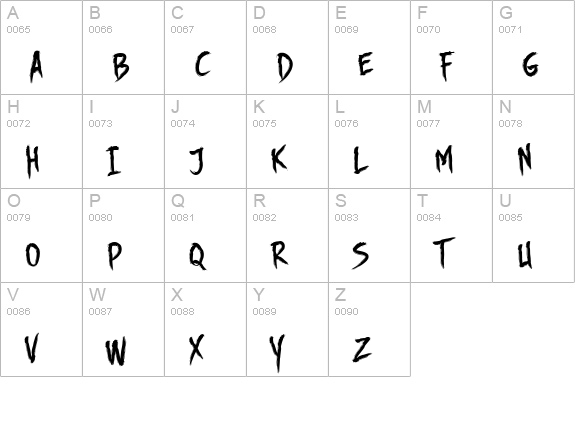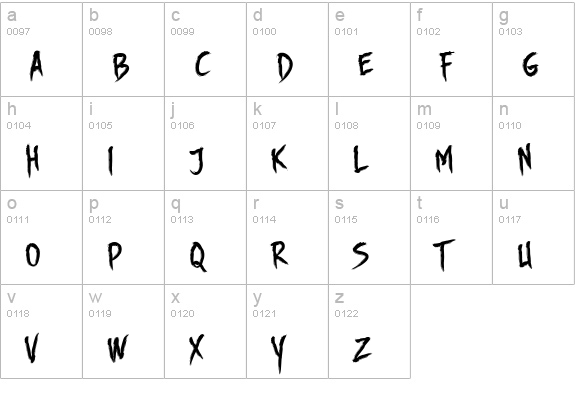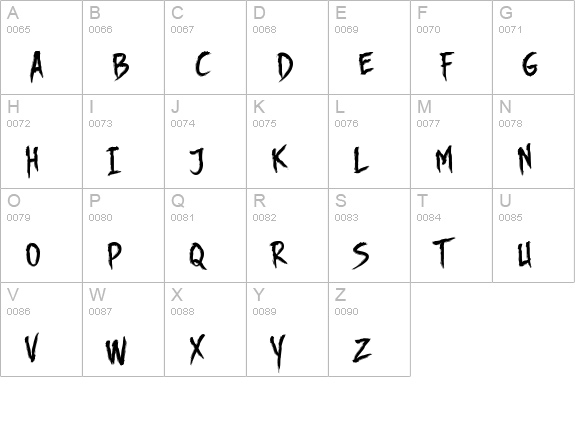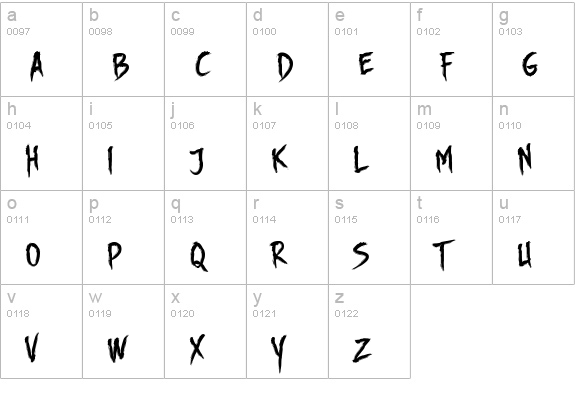
DHF Story Brush Font Details
Introducing DHF Story Brush, a captivating and versatile font that effortlessly brings your designs to life. This unique typeface boasts an exquisite brush-style that adds a touch of elegance and authenticity to any project. With its flowing strokes and carefully crafted letterforms, DHF Story Brush captures the essence of hand-drawn calligraphy, creating a visually stunning result. Whether you are designing logos, branding materials, invitations, or social media graphics, DHF Story Brush offers endless possibilities. Its smooth and dynamic curves make it perfect for giving your designs a contemporary and artistic feel. This font is bound to captivate your audience and leave a lasting impression. One of the best features of DHF Story Brush is that it is freely available to download at FontsMarket.com. This means that you can easily access this remarkable font and incorporate it into your creative endeavors without any cost. The convenience of having a high-quality font at your fingertips allows you to unleash your creativity and explore new design possibilities. DHF Story Brush is designed with precision and attention to detail, ensuring legibility and readability even at smaller sizes. This makes it suitable for a wide range of projects, from large-scale prints to digital designs. Its versatility extends to various design styles, allowing you to effortlessly create both modern and classic aesthetics. With DHF Story Brush, you can convey a sense of elegance, sophistication, and creativity in your designs. This font is a powerful tool that adds a touch of charm and uniqueness to any project. Download DHF Story Brush for free at FontsMarket.com and unlock a world of creative possibilities.